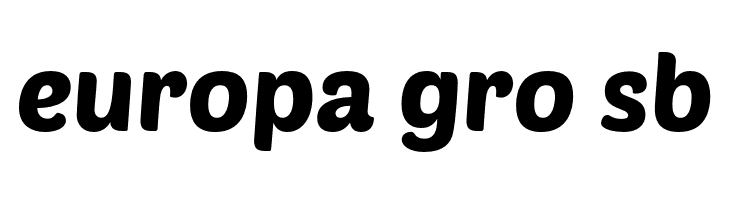
A futuristic, angular font with a dynamic italic style.
A geometric, angular font with a futuristic and tech-inspired design.
A geometric, minimalist font with thin, angular strokes and a futuristic feel.
A futuristic, geometric font with thin lines and an italic style.
A geometric, futuristic font with straight lines and sharp angles.
A classic serif font with high contrast and elegant serifs.
A classic serif font with high contrast and elegant, sharp serifs.
A playful, hand-drawn font with bold, irregular strokes and a whimsical style.
A bold, modern font with geometric, angular characters.
A bold, decorative font with thorny, barbed wire-like accents.
A gothic, thorny font with sharp, decorative elements.
A sleek, modern font with geometric influences and rounded edges.
A modern, geometric font with clean lines and a futuristic style.
A bold, geometric font with an industrial, stencil-like appearance.
A bold, futuristic font with a unique dotted pattern and geometric structure.
A futuristic, bold font with geometric and angular shapes, ideal for modern designs.
A playful, rounded font with a modern and slightly retro style.
A bold, rounded, and playful font with a modern and friendly style.
A bold, rounded font with a playful and approachable style.
A bold, rounded font with a modern and playful style.
A bold, edgy font with jagged, pointy edges and a hand-drawn feel.
A bold, jagged font with sharp edges and a dynamic, aggressive style.
A bold, decorative font with intricate framing around each character.
A modern, geometric font with rounded edges and consistent stroke width.
A bold, italicized font with a futuristic and geometric design.
A futuristic, angular italic font with geometric shapes and sharp edges.
A futuristic, geometric font with angular edges and consistent thickness.
A bold, 3D italic font with a futuristic and dynamic style.
A bold, 3D font with a modern, geometric style and strong visual impact.